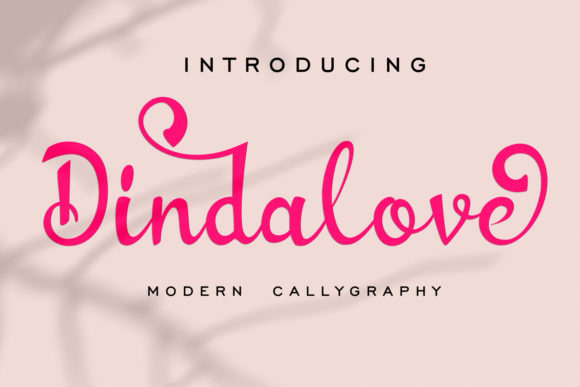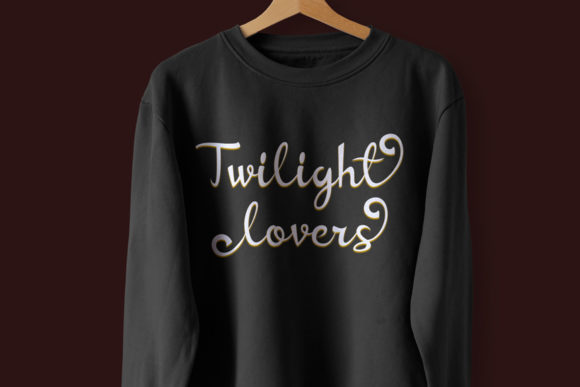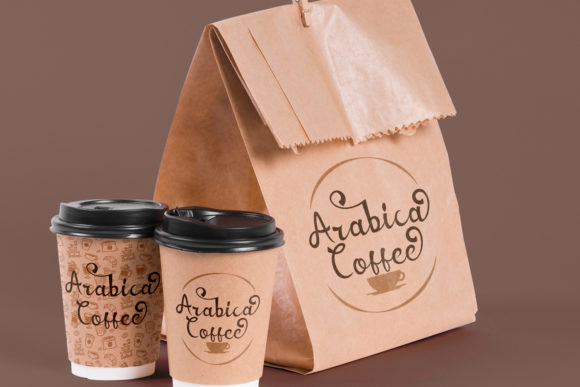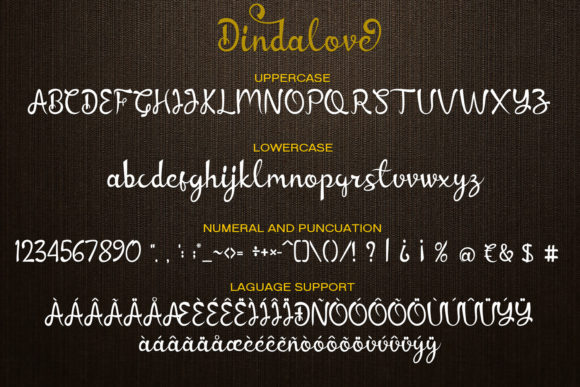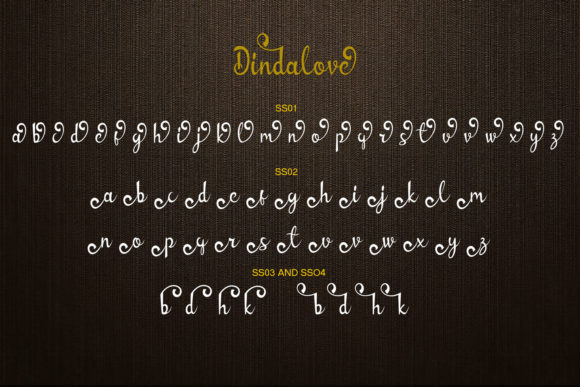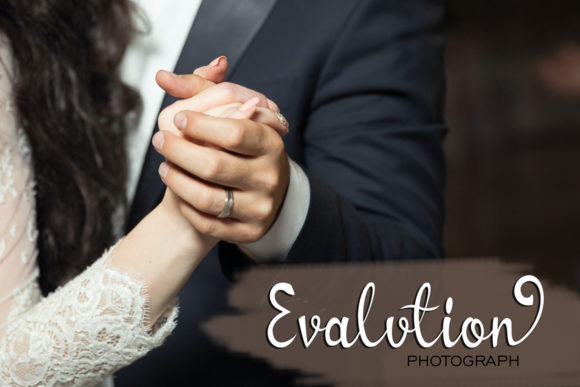
Falling in Love with the Perfect Font
Have you ever been in the midst of a creative project, staring blankly at a blank page, waiting for inspiration to strike? It’s a moment we’ve all been in, and it’s exactly this feeling that the Dindalove Font is designed to capture. This romantic and sweet handwritten font is the perfect accompaniment to your next design project.
With its distinct and well-balanced letters, the Dindalove Font is a true masterpiece. Whether you’re a seasoned designer or just starting out, this font is sure to bring a touch of magic to your work. Its incredibly versatile style makes it perfect for a wide range of projects, from wedding invitations to social media graphics.
As a PUA-encoded font, you’ll have access to all of the glyphs and swashes, making it easy to get creative with your designs. Whether you’re looking to add a touch of romance or whimsy to your work, the Dindalove Font is sure to be a valuable addition to your design toolkit.
- Unique Characteristics: Elegant script font with a touch of vintage flair, perfect for wedding invitations, greeting cards, and other special occasions
Dindalove Font Review
As a designer, I was excited to dive into the Dindalove Font and see what it had to offer. Here’s my honest review.
- The Dindalove Font has a unique, hand-drawn feel that adds a touch of personality to any design. It’s perfect for creating eye-catching headings or titles.
- The font is highly customizable, with a wide range of weights and styles to choose from. This makes it easy to create a consistent look and feel across different design elements.
- The font is well-suited for modern designs, with a clean and minimalist aesthetic that’s easy on the eyes.
- The Dindalove Font may not be suitable for body text, as the letterforms can be quite ornate and difficult to read at small sizes.
- The font may not be as versatile as some other fonts on the market, and may not be suitable for designs that require a more formal or traditional look.
Overall, I think the Dindalove Font is a great addition to any designer’s toolkit. While it may have some limitations, its unique personality and high level of customization make it a great choice for modern designs.
The Dindalove font is ideal for creative and artistic projects, such as:
- Social media graphics and posts
- Illustrations and graphics